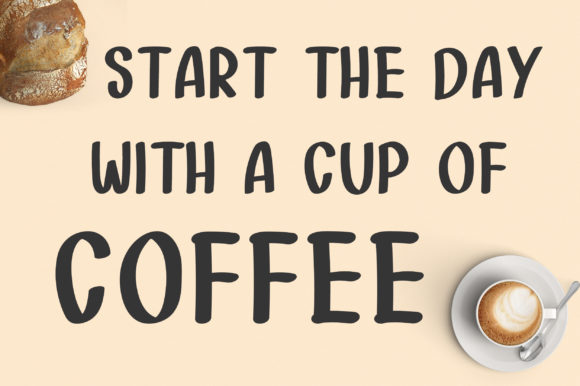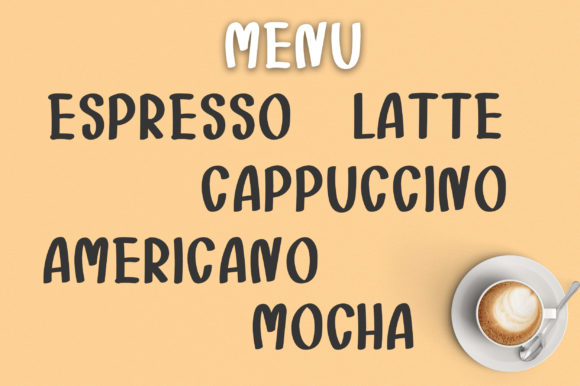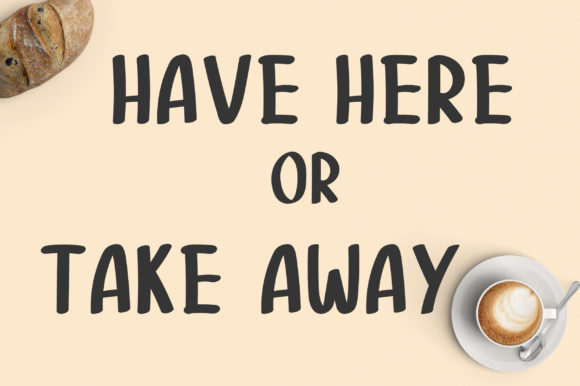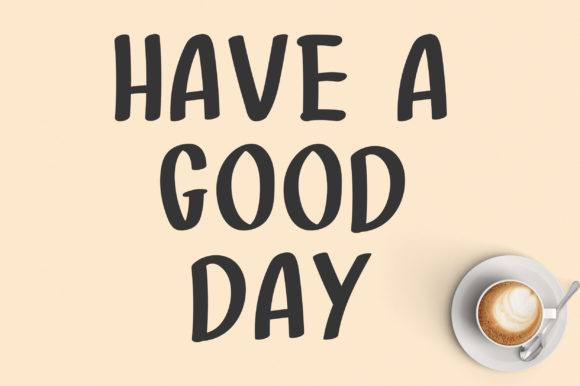
Coffee Maker Font: The Perfect Addition to Your Design Projects
Are you a designer or crafter looking for a unique and friendly font to elevate your design projects? Look no further than the Coffee Maker Font! This cute and casual handwritten font is sure to add a touch of warmth and personality to any design.
What is Coffee Maker Font?
Coffee Maker Font is a carefully crafted handwritten font that exudes a friendly and approachable feel. Its casual and relaxed style makes it perfect for a wide range of design projects, from branding and headings to invitations and labels.
Key Features of Coffee Maker Font
- Cute and Casual: Coffee Maker Font has a playful and informal style that is sure to capture the attention of your audience.
- Handwritten: The font’s handwritten style gives it a personal and unique touch that sets it apart from more traditional fonts.
- Friendliness: The font’s friendly feel makes it perfect for designs that require a warm and approachable tone.
- Versatility: Coffee Maker Font can be used for a wide range of design projects, including branding, headings, invitations, signatures, logos, labels, and more.
How to Use Coffee Maker Font
Coffee Maker Font can be used in a variety of design projects, including:
Branding
Coffee Maker Font is perfect for creating a unique and memorable brand identity. Its friendly and approachable style makes it ideal for businesses that want to connect with their customers on a personal level.
Headings and Titles
Add a touch of personality to your headings and titles with Coffee Maker Font. Its casual and playful style makes it perfect for blog posts, articles, and other written content.
Invitations and Cards
Coffee Maker Font is perfect for creating invitations, greeting cards, and other paper crafts. Its handwritten style gives your designs a personal and unique touch.
Logos and Icons
Coffee Maker Font can be used to create unique and memorable logos and icons. Its friendly and approachable style makes it perfect for businesses that want to connect with their customers on a personal level.
Benefits of Using Coffee Maker Font
- Unique and Memorable: Coffee Maker Font is a unique and memorable font that will help your designs stand out from the crowd.
- Easy to Read: The font’s clear and legible style makes it easy to read, even at small sizes.
- Versatile: Coffee Maker Font can be used for a wide range of design projects, making it a great addition to any designer’s toolkit.
- Time-Saving: With Coffee Maker Font, you can create professional-looking designs in no time. Its friendly and approachable style eliminates the need for extensive design experience.
Tips and Tricks for Using Coffee Maker Font
- Pair with Other Fonts: Coffee Maker Font pairs well with other fonts, such as sans-serif fonts like Arial or Helvetica.
- Experiment with Colors: Coffee Maker Font looks great in a variety of colors, from bright and bold to soft and pastel.
- Use for Emphasis: Use Coffee Maker Font to add emphasis to important text, such as headings or titles.
| Font Name | Coffee Maker Font |
| Author | PearlyDaisy |
Coffee Maker Font is a unique and versatile font that is perfect for designers and crafters looking to add a touch of personality to their designs. Its friendly and approachable style makes it ideal for a wide range of design projects, from branding and headings to invitations and labels. With its ease of use and versatility, Coffee Maker Font is a great addition to any designer’s toolkit.